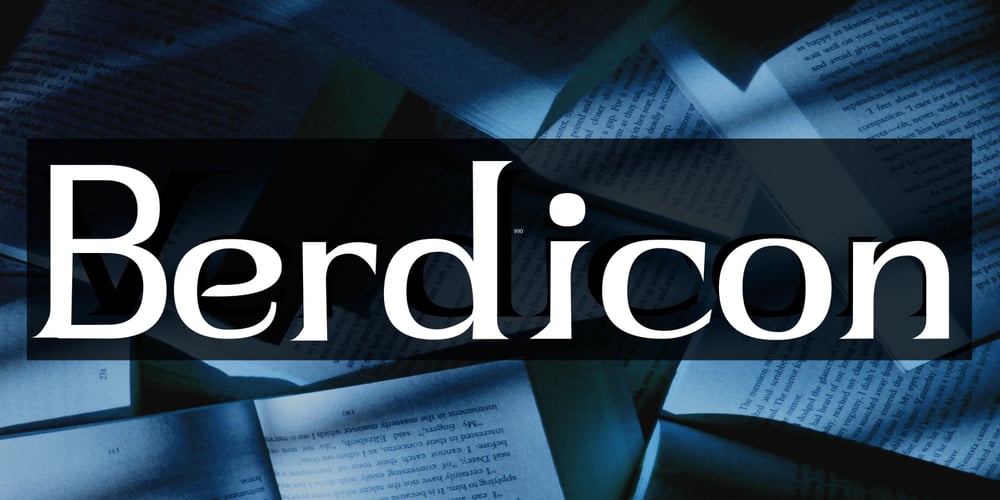
Berdicon Font Family was designed by bsmbang wisudyantoro and published by Beewest Studio. Berdicon contains 2 styles and family package options. Verdicon is an elegant and distinctive serif font family that is a great solution for your projects. These include vertical and diagonal styles, each with eight weights ranging from thin to thick. It is a classic and versatile typeface, perfect for fashion, contrast, modern and legible designs. With it, you can create logos and banners, use them in advertising, packaging, book and magazine covers, titles, descriptions and more.